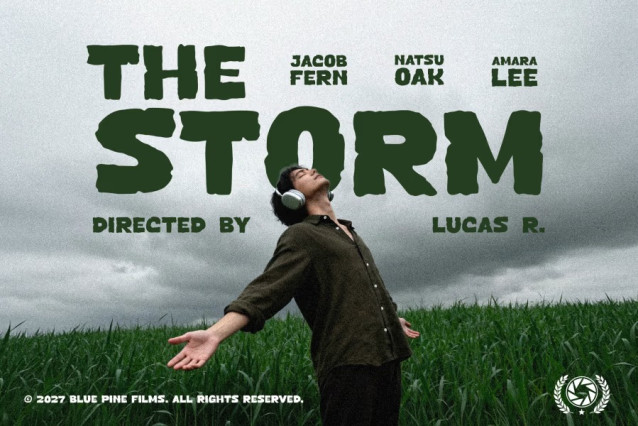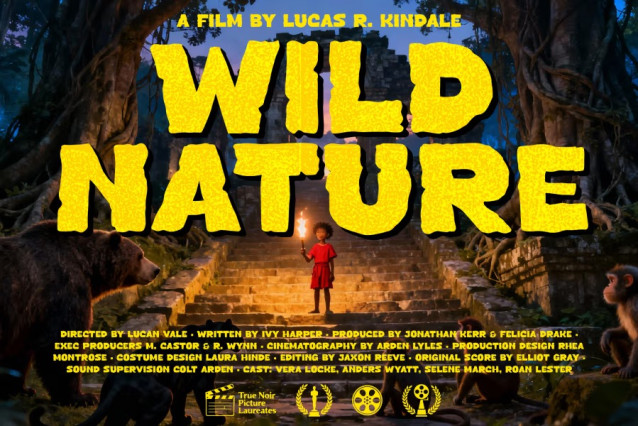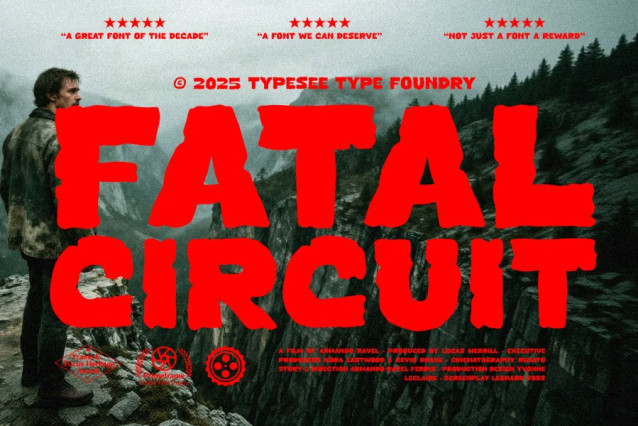
Fatal Circuit Font
Fatal Circuit Font is a bold, high-impact display font featuring rugged, irregular letterforms that deliver a raw cinematic energy. Perfect for posters, titles, and designs that demand loud, unapologetic visual presence.
Fatal Circuit is a powerful display typeface designed to command attention with its chunky, distressed, and hand-crafted letter shapes. Inspired by gritty film posters, survival themed artwork, and dynamic adventure visuals, the font exudes tension, strength, and a sense of danger. Each character is intentionally rough and uneven, giving the typeface a striking organic feel while preserving readability at large sizes.
Ideal for movie titles, gaming graphics, dramatic advertising, bold branding, and thematic illustrations, Fatal Circuit brings an intense personality to any creative project. Whether placed over moody landscapes, action-packed scenes, or dark atmospheric compositions, this font enhances the visual narrative with its fierce, cinematic flair.
Designed for creators who want their typography to stand out, Fatal Circuit delivers an unmistakable presence loud, raw, and visually electrifying.